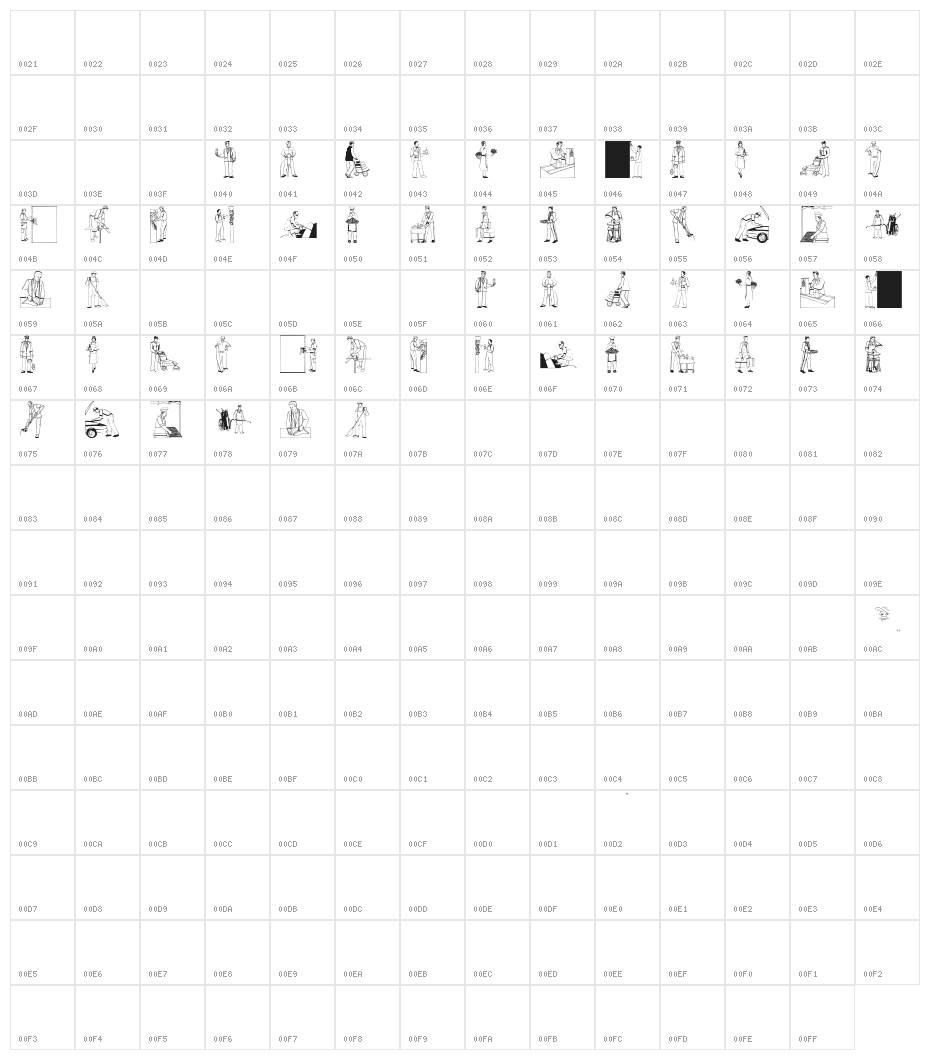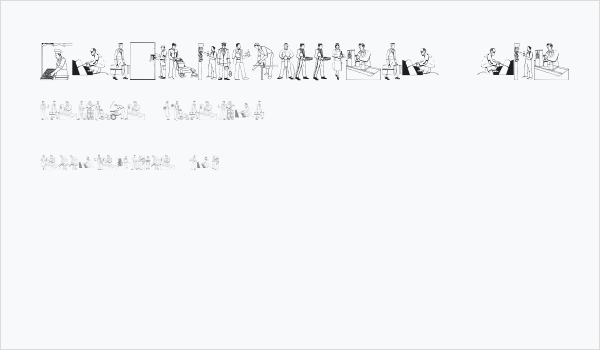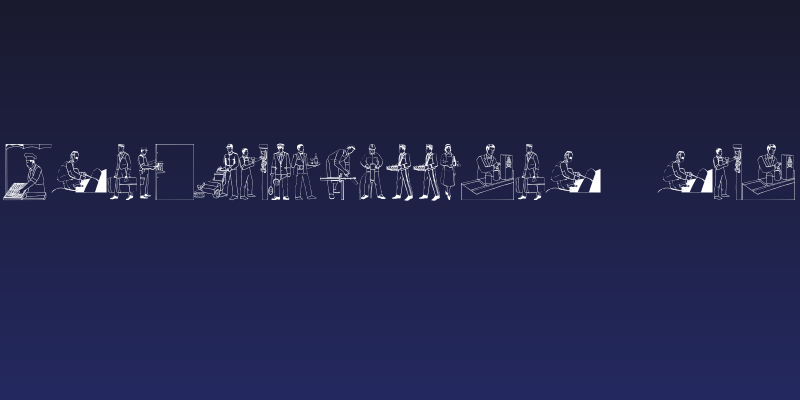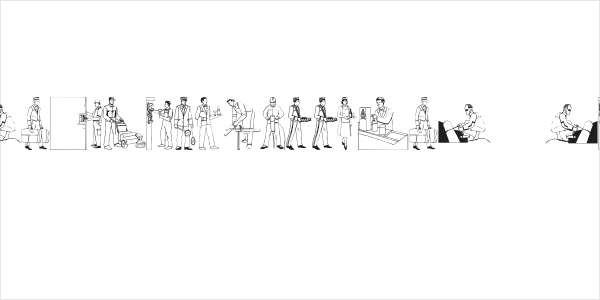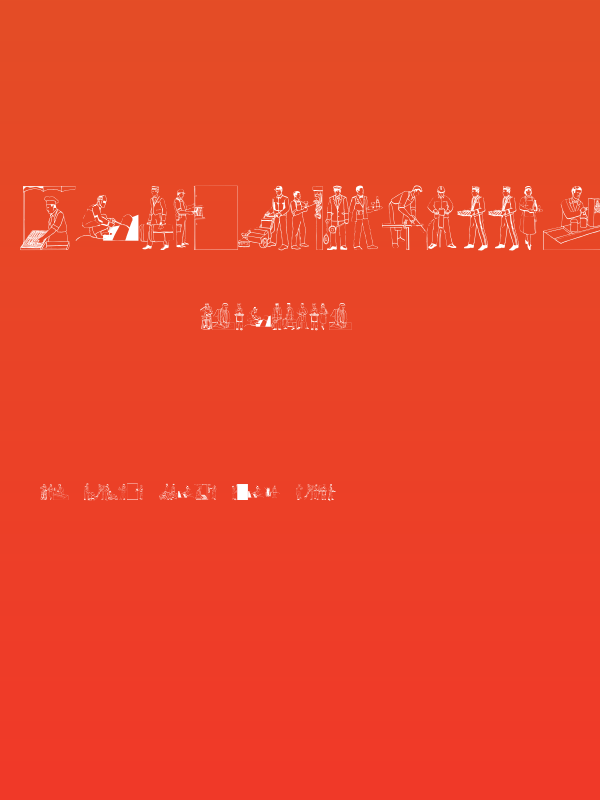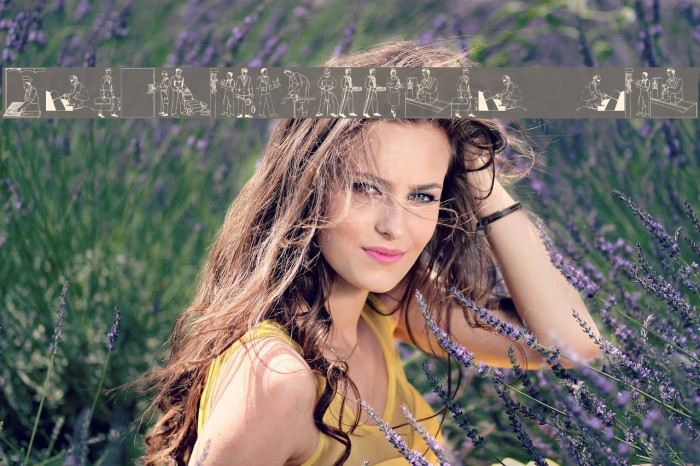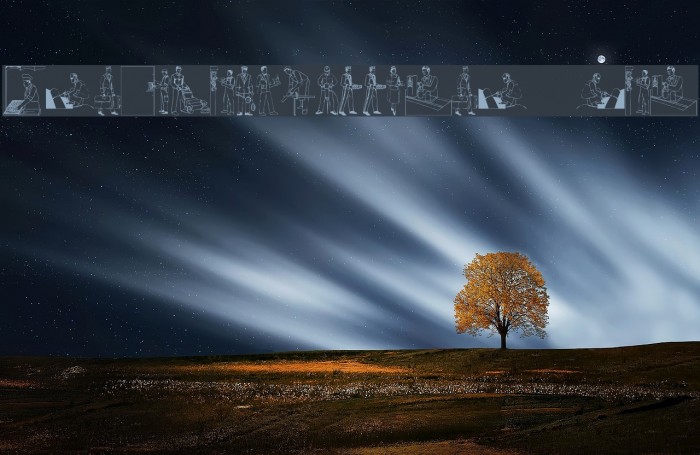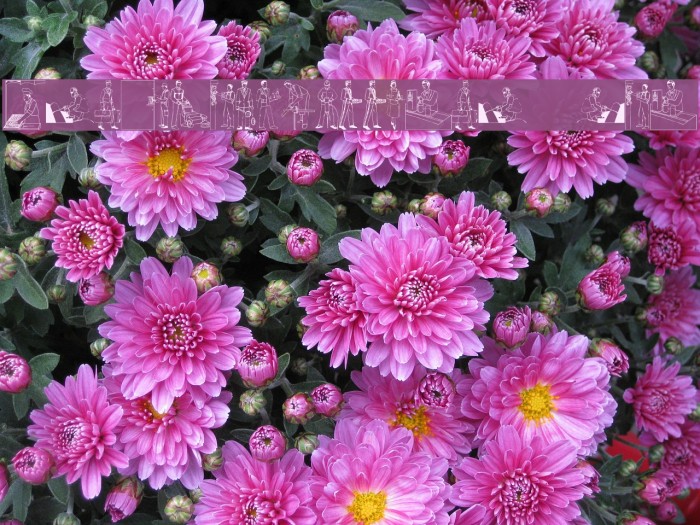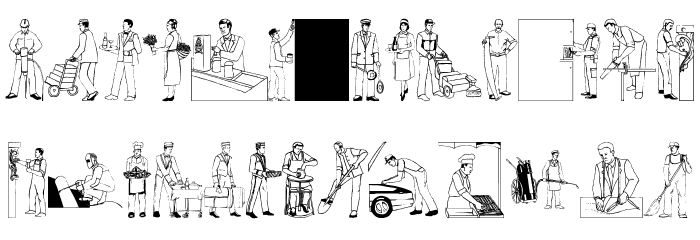
WorkingClassHero-One Font
WorkingClassHero-One Description
A decorative display font composed entirely of detailed line-art illustrations depicting various working-class professions and activities, with each character represented by a unique occupational scene.
| Overall Style | Decorative, Illustrative, Thematic |
| Use Case | Headlines, Posters, Themed Logos, Display text |
| Proposed Projects | Posters, editorial illustrations, labor union materials, themed branding, educational resources, event graphics. |